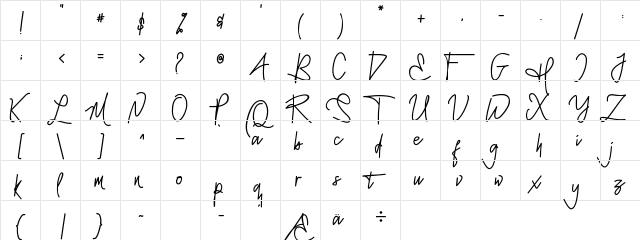
Mellgatha Regular
Design Context for Mellgatha Typeface
Mellgatha is a composed and adaptable typeface that performs quietly and consistently across a wide range of design contexts.